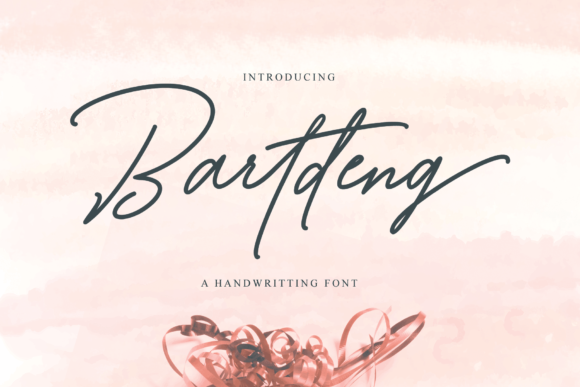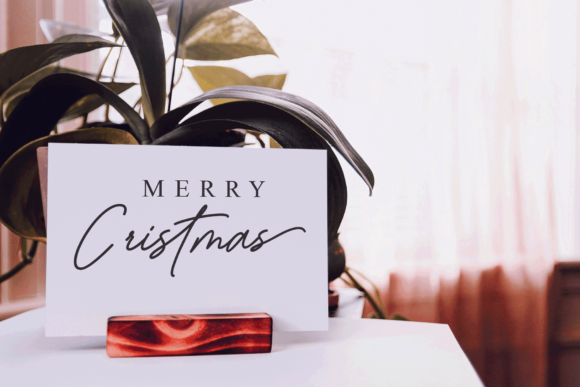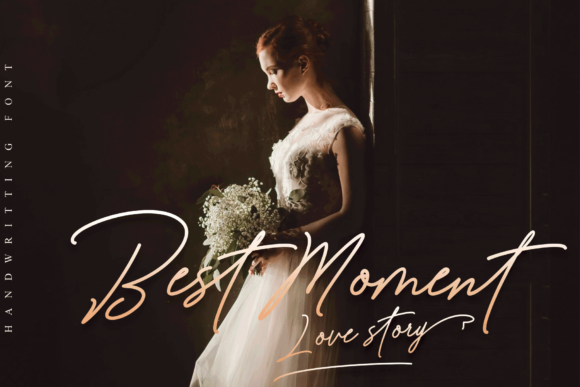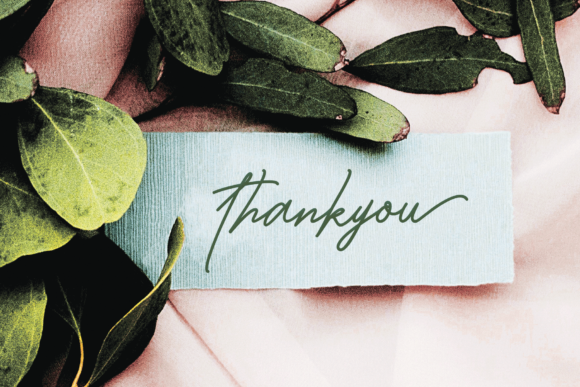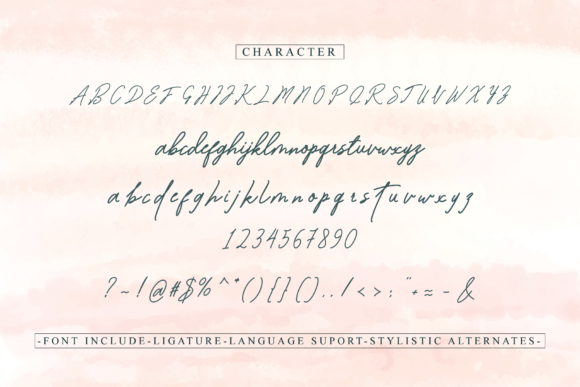
About Bartdeng Font
The Bartdeng is an unique handwritten font. It has an luxurious style and is perfect for adding an upscale and chic look to your designs.
It’s suitable for logos, signatures, corporate symbols, wedding invitations, titles, t-shirts, business cards, letterheads, nameplates, headings, labels, posters, news, badges, letterheads, cuttings, hot stamping, quotations, and more!